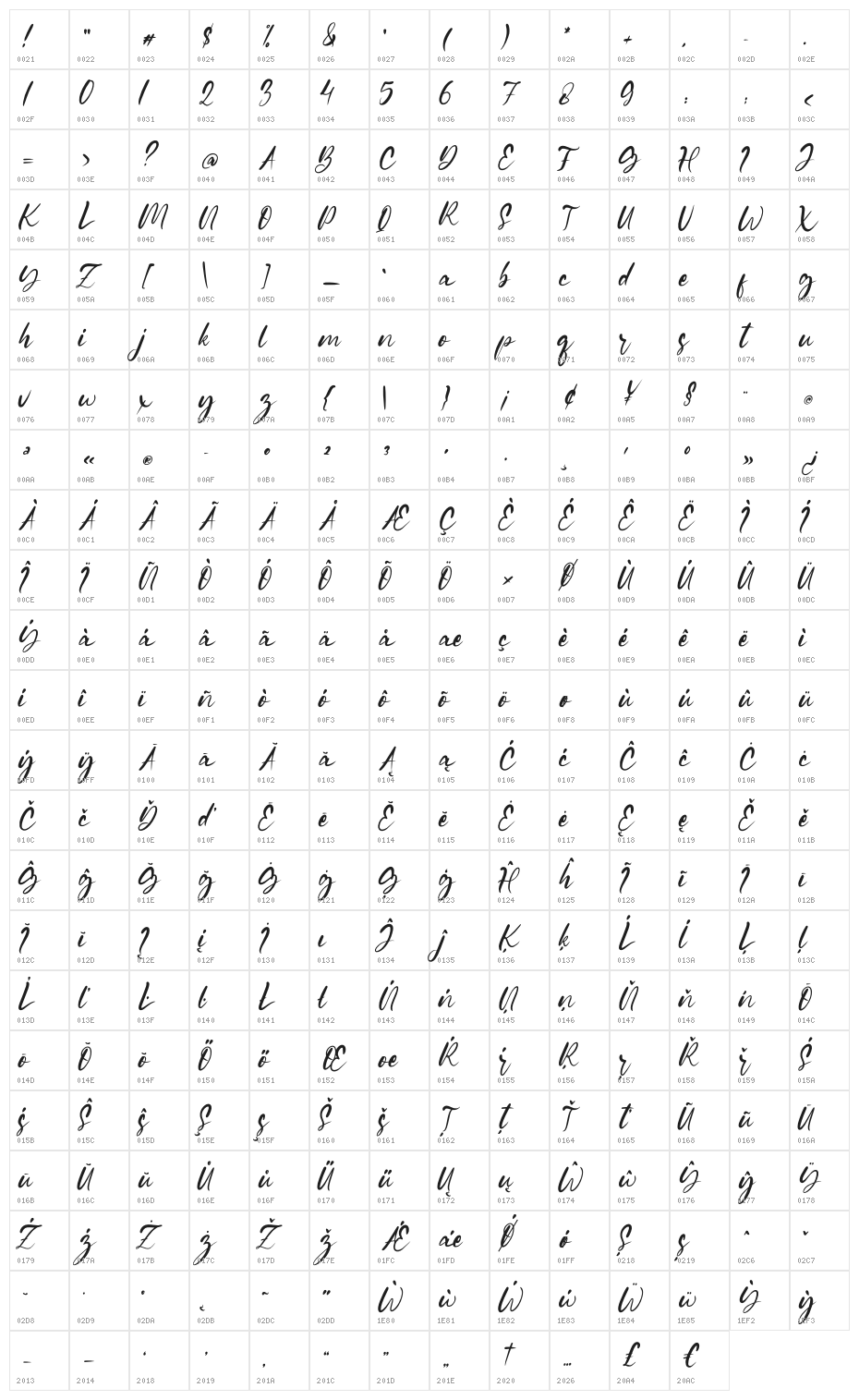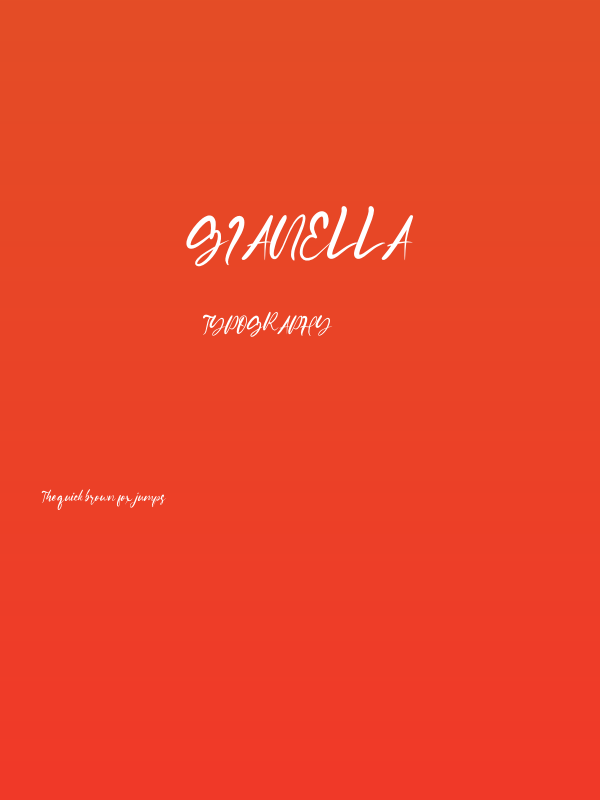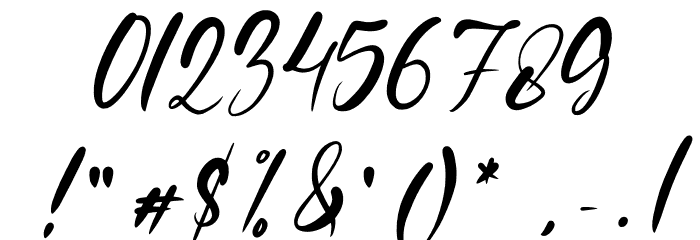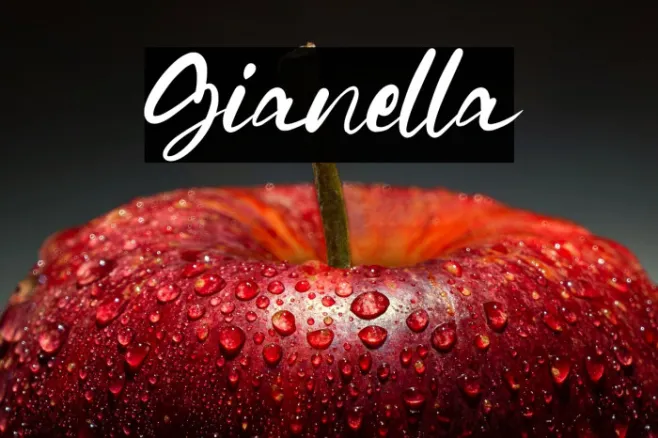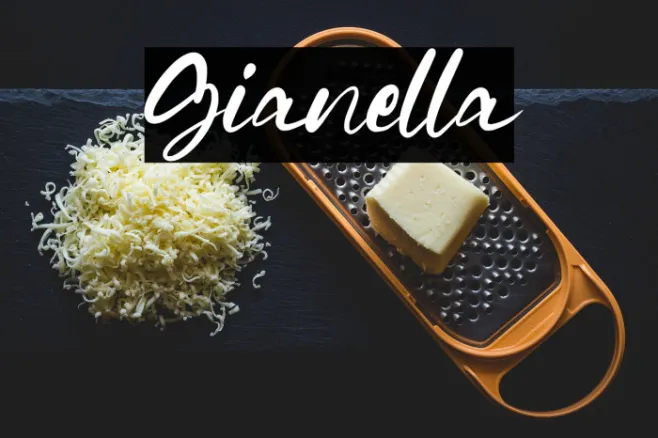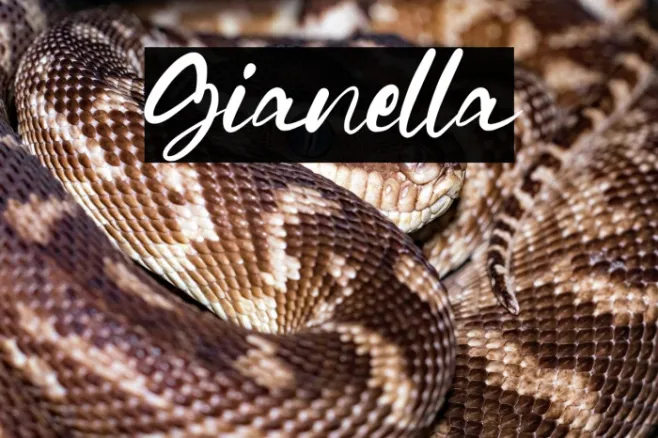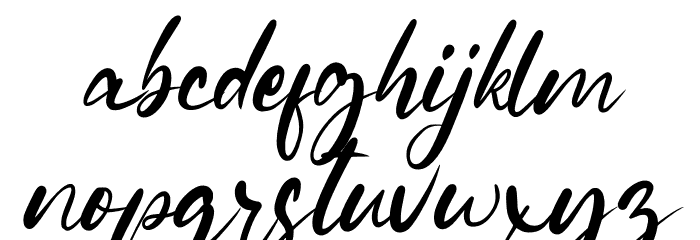
Gianella Font
Gianella Description
This font exudes a dynamic and elegant script style, characterized by its fluid, cursive strokes and a sense of movement. The letters are interconnected, creating a seamless flow that mimics natural handwriting. The uppercase letters are bold and prominent, while the lowercase letters maintain a graceful and slightly more delicate appearance. The numerals and special characters are crafted with the same attention to detail, ensuring consistency across the entire typeface. This font's artistic flair makes it suitable for projects that require a personal touch or a sophisticated aesthetic.
| Proposed Projects | Ideal for wedding invitations, branding, greeting cards, and elegant packaging designs. |